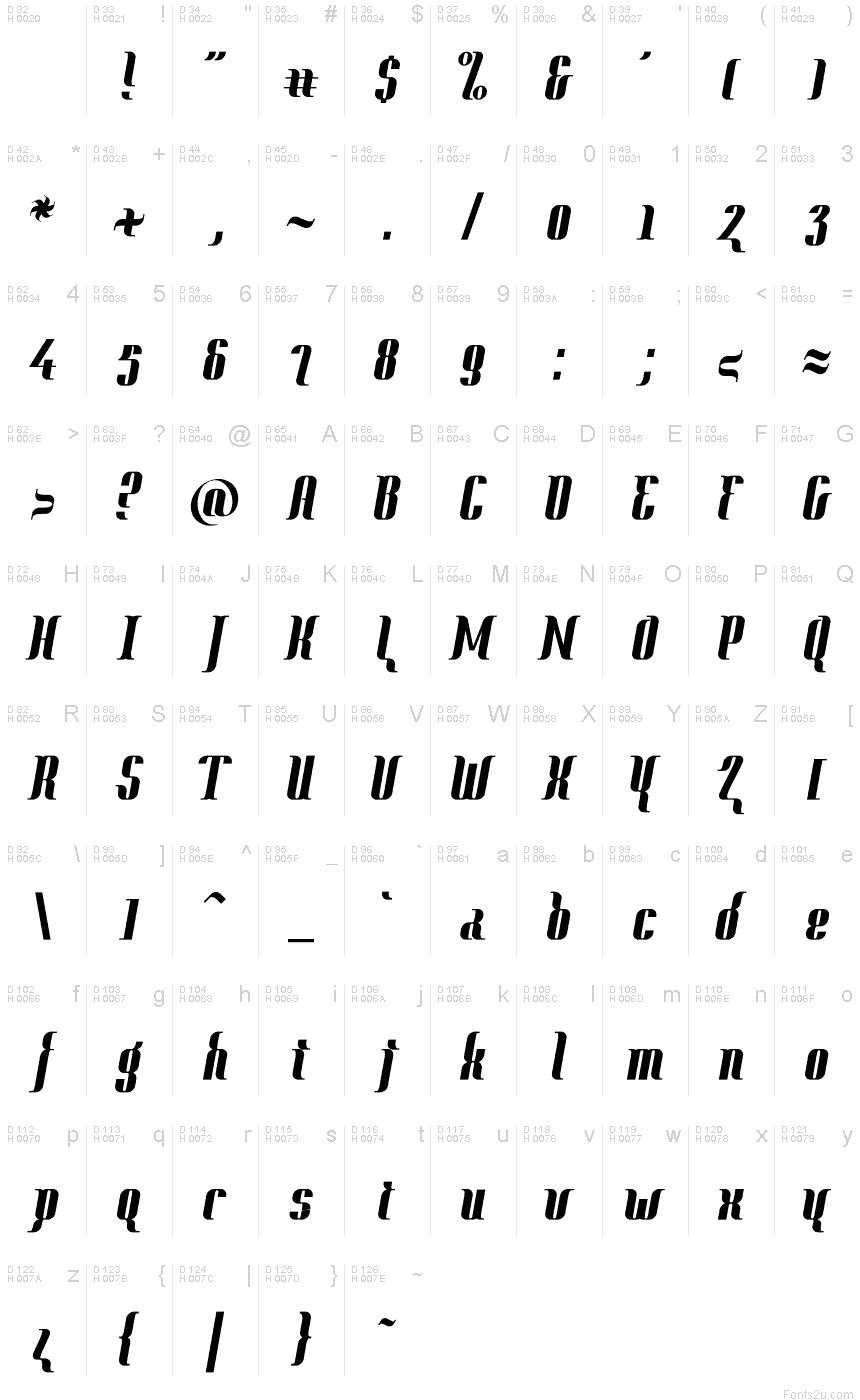
Year2000 Context Heavy
Year2000 Context Heavy font is a free modern decorative typeface that fuses sci‑fi sleekness with a sharp, calligraphic bite. Its narrow, forward‑leaning forms feel like they’ve been pulled through time—part retro-futurist rave flyer, part inky gothic script. The dense black shapes and tight rhythm create a bold stripe of texture, so even a short word reads like a logo.
Using Year2000 Context Heavy, you can push attitude into EDM posters, game titles, cyberpunk branding, experimental book covers, fashion labels, and album art. This free font shines at large sizes where its slanted strokes and dramatic curves can really hit. Try pairing it with a simple geometric sans for body text to keep layouts readable while the title does all the heavy lifting.